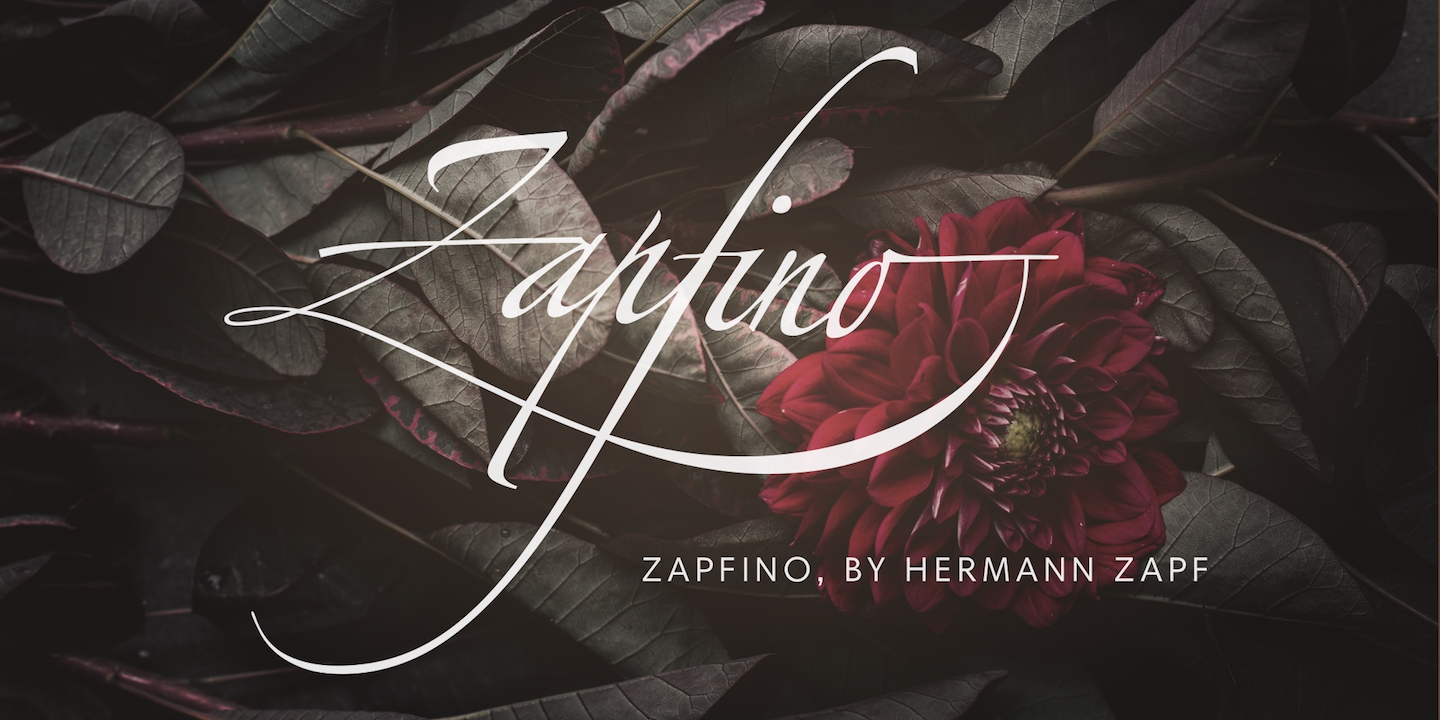
Zapfino Extra Font is perfect for luxury wedding invitations, high-end calligraphy projects, premium greeting cards, elegant stationery designs, exclusive event announcements, and sophisticated artistic presentations. Its ornate character makes it ideal for wedding planners, luxury stationery boutiques, calligraphy artists, fine art galleries, and any application requiring exquisite script typography that conveys artistic mastery, elegant sophistication, and the highest levels of calligraphic excellence.
Zapfino Extra Font is exciting because it represents the pinnacle of digital calligraphy through extraordinarily elaborate letterforms that showcase the virtuosic artistry of master calligrapher Hermann Zapf. Its flowing curves and decorative flourishes create an unparalleled sense of luxury and artistic refinement, making it perfect for the most prestigious design applications requiring supreme elegance. The font's calligraphic mastery transforms ordinary text into breathtaking works of typographic art that command attention and admiration.
Zapfino Extra Font family includes artistically-enhanced variations typically featuring multiple stylistic sets, extensive ligatures, and hundreds of ornamental alternates with flowing script styles. The family often incorporates decorative swashes, calligraphic ornaments, and artistic flourishes designed for luxury presentation applications, providing designers with comprehensive tools for creating museum-quality, calligraphically-inspired typographic masterpieces.
When selecting premium calligraphic typography solutions, Zapfino Extra Font Free Download represents an exceptional choice for luxury design projects. This masterful typeface brings instant calligraphic prestige to any application, making it invaluable for luxury brands, high-end event designers, and artistic organizations celebrating calligraphic excellence. Whether you're developing exclusive wedding materials, creating luxury brand communications, or designing prestigious artistic presentations, Zapfino Extra Font provides the calligraphic artistry and elegant sophistication essential for creating unforgettable luxury experiences in today's premium design marketplace.